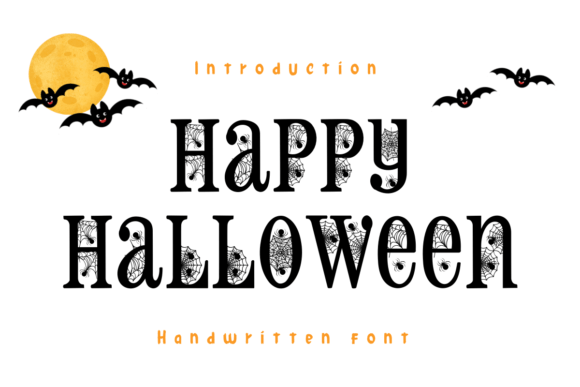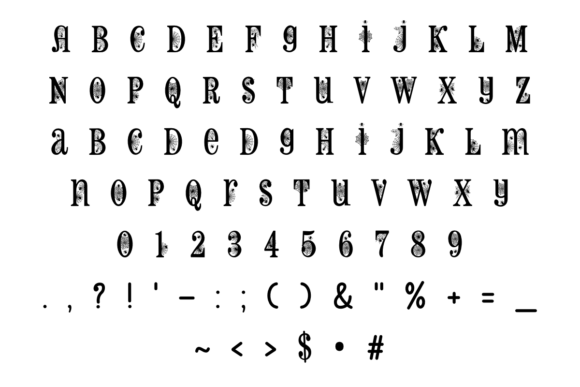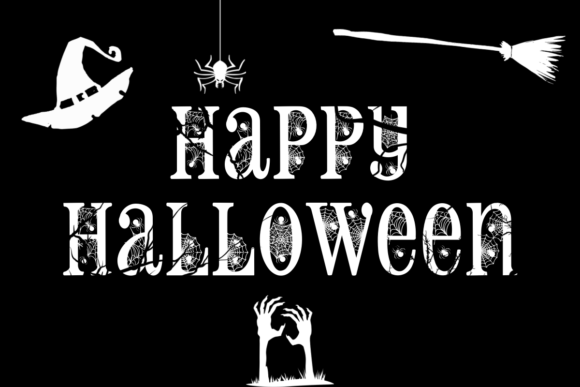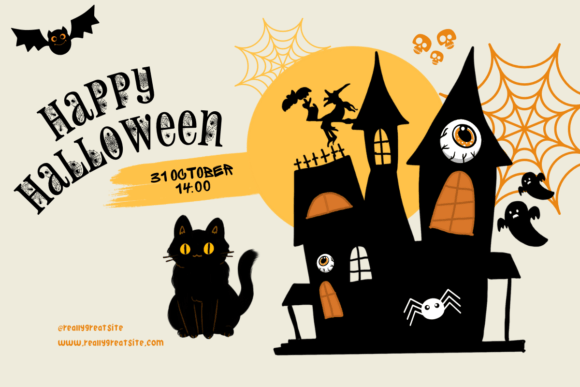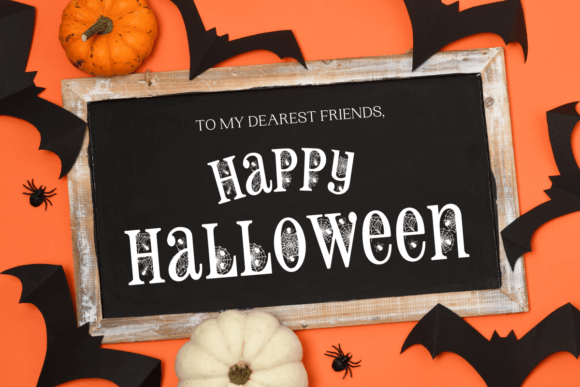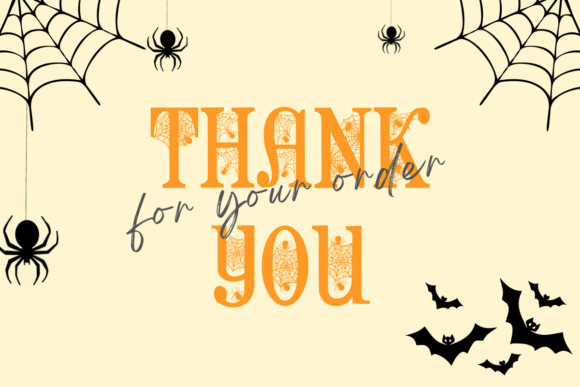
Happy Halloween Font
Happy Halloween is a fun, spooky font with spiderwebs woven into the letters. Perfect for adding a creepy, festive touch to your Halloween decorations!